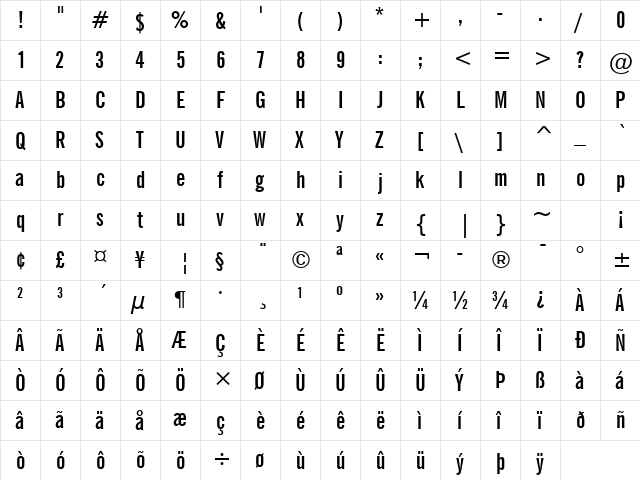
NewsGoth BdXCn BT Bold Font Preview
NewsGoth BdXCn BT Bold
Design Context for NewsGoth BdXCn BT Typeface
NewsGoth BdXCn BT is a composed and adaptable typeface that performs quietly and consistently across a wide range of design contexts. Its bold stroke weight gives it real presence on the page.